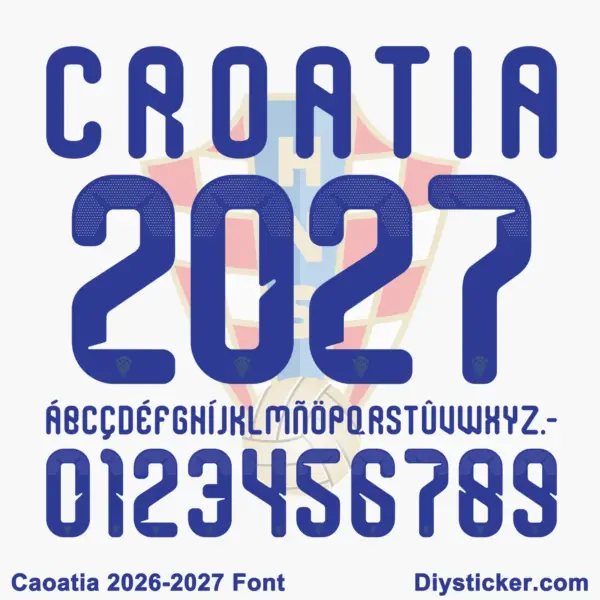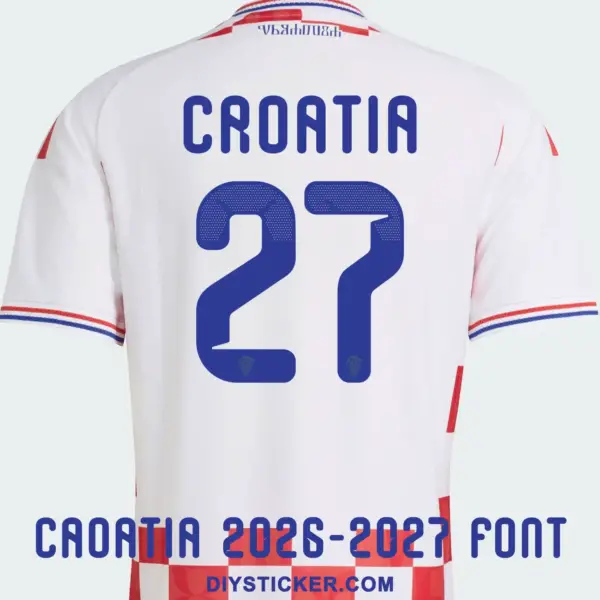
Empower your custom sports apparel and fan gear with the official Croatia 2026-2027 font download! Designed specifically for kit customizers, sports lettering shops, and heat transfer professionals, this typography collection captures the signature national team aesthetic. Featuring unique rounded condensed letterforms and numbers detailed with a subtle halftone gradient dot pattern at the top and the official HNS crest at the base, it is the premier custom jersey printing font Croatia solution for DTF printing, heat transfers, and vinyl decal production.
Complete uppercase alphabet, Croatia jersey numbers vector, and international diacritics (including
Á,Ć,Č,É,Ğ,Í,Ñ,Ö,Š,Ü,Ž).
Elevate Your Kit Customization with the Croatia 2026-2027 Font
Upgrade your sportswear lettering arsenal with the official 2026-2027 kit font for Croatia! Engineered for high-precision printing and cutting, this vector package offers an authentic Croatia 2026-2027 font download tailored to international tournament kit specifications. The lettering displays smooth, rounded condensed proportions, paired with bold squad numbers featuring a distinctive micro-dot halftone gradient along the upper curves and the official HNS checkerboard crest embedded near the bottom edge.
Comprehensive Character Mapping
A-Z Uppercase Alphabet: Modern condensed sans-serif letterforms styled for clear visibility on back nameplates.
0-9 Custom Squad Numbers: Bold, stylized numeric glyphs with gradient dot texturing and the HNS emblem embedded at the base (supplied as Croatia jersey numbers vector).
Special Accents & Diacritics: Complete set of international accents (
Á,Ć,Č,É,Ğ,Í,Ñ,Ö,Š,Ü,Ž,.,-) to accurately render player names using this custom jersey printing font Croatia collection.
Does this bundle include the halftone gradient dot details on the numbers?